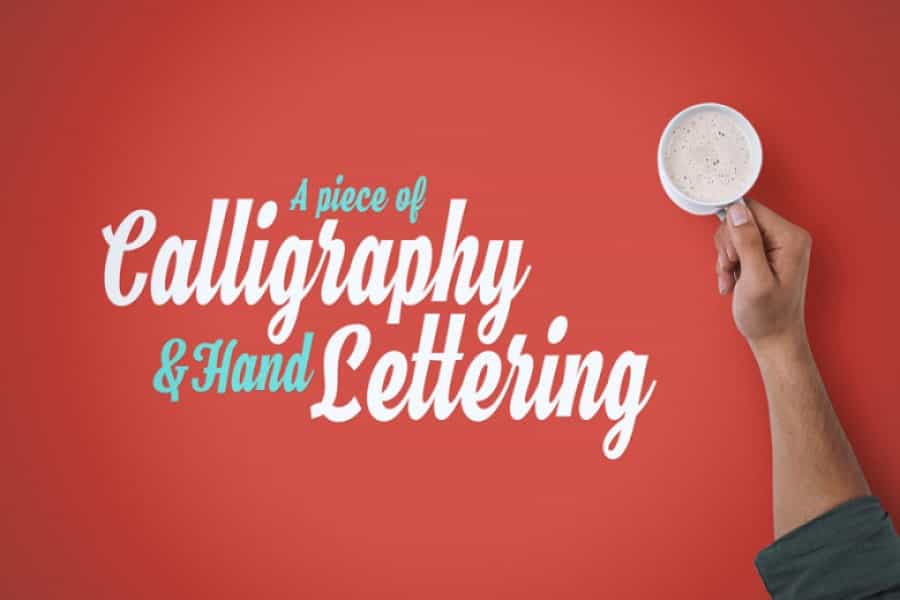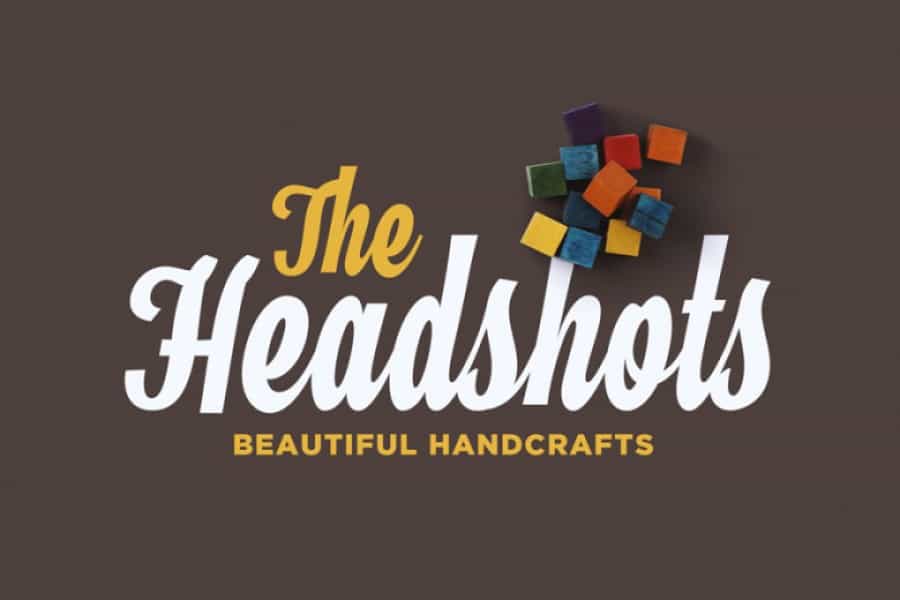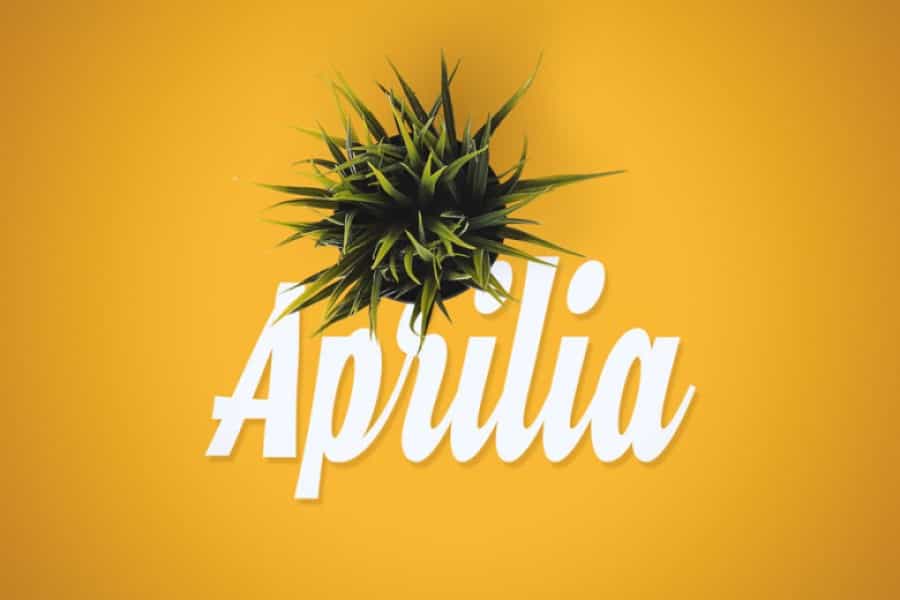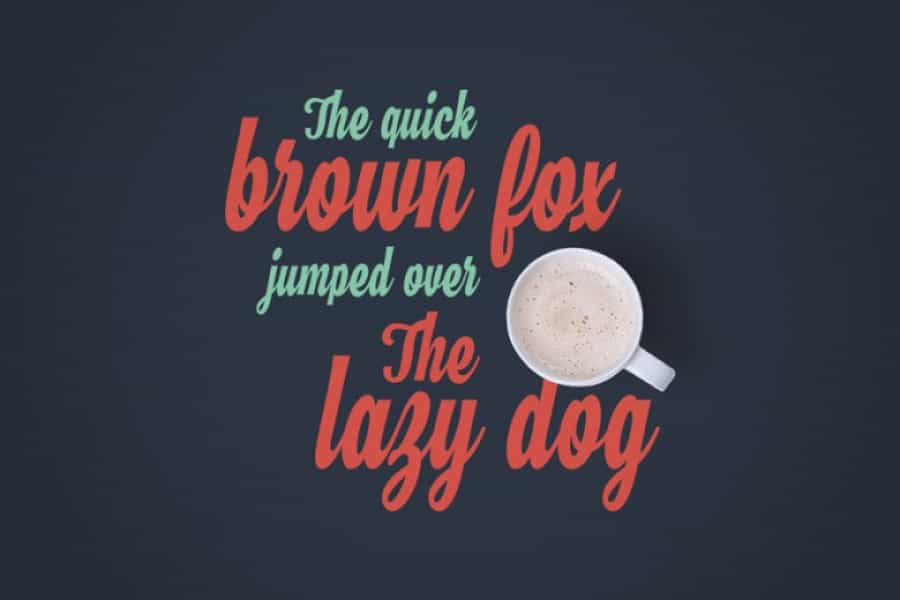
Discover Hamster Script Font, part of the Brush collection—a versatile and unique font perfect for adding a personal touch to your projects. Download it for free and enjoy crafting designs with style, from invitations to social media posts. This font is available exclusively for personal use, giving you the freedom to create without limits. Unlock your creativity with Hamster Script Font today!
Hamster was designed with influence from sign writing and brush lettering , great for any branding or identity project, more suitable for clothing or t-shirts, headlines for signs or posters. While writing Hamster Script, special focus has been put on comprehensiveness of the script in order to have the possibility of changing it freely and easily.